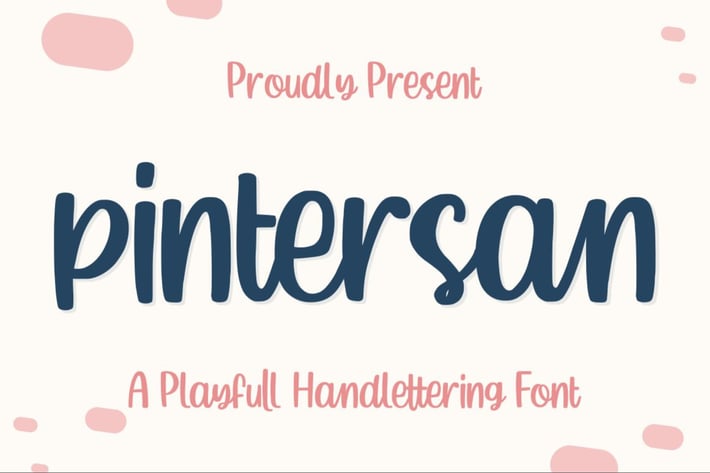
Pintersan a Crafter Font
Introducing Pintersan Handlettering Font
Pintersan typeface born from original and natural handlettering in the paper with bold point and pen; delivering a stylish typeface that is guaranteed to add naturality styles and taste appeal to your logo designs, brand imagery, quotes, product packaging, merchandise & social media posts.
Uppercase & Lowercase letters – Numbers & Punctuation
Ligatures
* Multilingual Support with the accent.